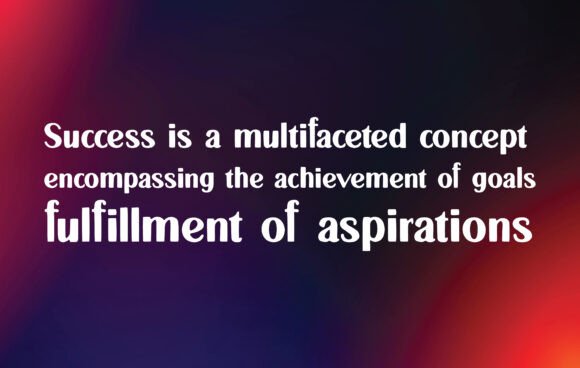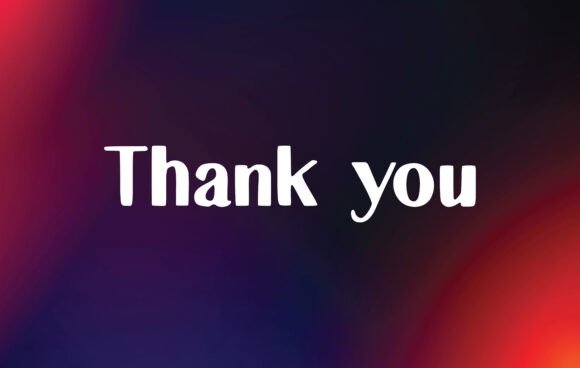
Unlock Your Creative Potential with the Ayleen Font
Have you ever sat at your desk, staring blankly at a blank page, waiting for that spark of inspiration to strike? The pressure to create something amazing can be daunting, but with the right tools, it’s just a matter of time before your ideas start flowing. That’s where the Ayleen Font comes in – a versatile and eye-catching typeface designed to bring your creative vision to life.
This go-to favorite font is perfect for designers looking to elevate their work. Clear and easy to read, Ayleen Font is a great choice for titles and body text alike. Whether you’re designing magazine covers, t-shirts, social media posts, branding, wedding invitations, or greeting cards, this font fits right in with style and personality.
With the Ayleen Font, you’ll have the freedom to express yourself creatively, without worrying about readability or aesthetics. It’s a valuable asset for any designer looking to take their work to the next level.
Ayleen Font Key Features
- Font Type: Ayleen is a sans-serif font.
- Unique Characteristics: Features a modern, minimalist design with clean lines and geometric shapes.
- Font Weight: Available in Light, Regular, Medium, and Bold weights for added flexibility.
Ayleen Font Review
Overall, I was excited to dive into the Ayleen Font, and I must say it’s a unique find. ✨ One of the standout features is its elegant and refined aesthetic, perfect for creative projects or branding materials. The font’s flowing lines and curves add a touch of sophistication, making it ideal for high-end designs.
✨ Another aspect that impressed me is the font’s versatility. It’s available in a range of weights, from light to bold, allowing for seamless integration into various design contexts. Additionally, the font’s open type features enable advanced typographic control, giving designers the flexibility to fine-tune their designs.
⚠️ One potential drawback is the font’s limited language support. It’s primarily designed for Latin-based languages, which may limit its applicability for non-Latin script projects.
Overall, the Ayleen Font is a solid choice for designers seeking a high-end, elegant font for their projects. While it may have some limitations, its unique aesthetic and versatility make it a worthwhile addition to any design library.
Getting the Most Out of Ayleen Font
To get the most out of Ayleen font, consider the following tips:
- Use Ayleen font for headings and titles to add a touch of elegance.
- Pair Ayleen font with other sans-serif fonts for a clean and modern look.